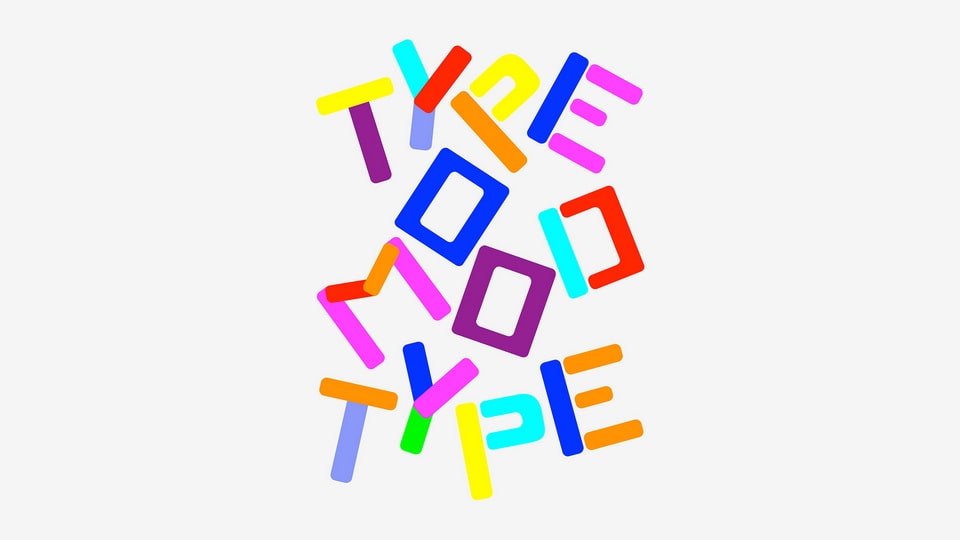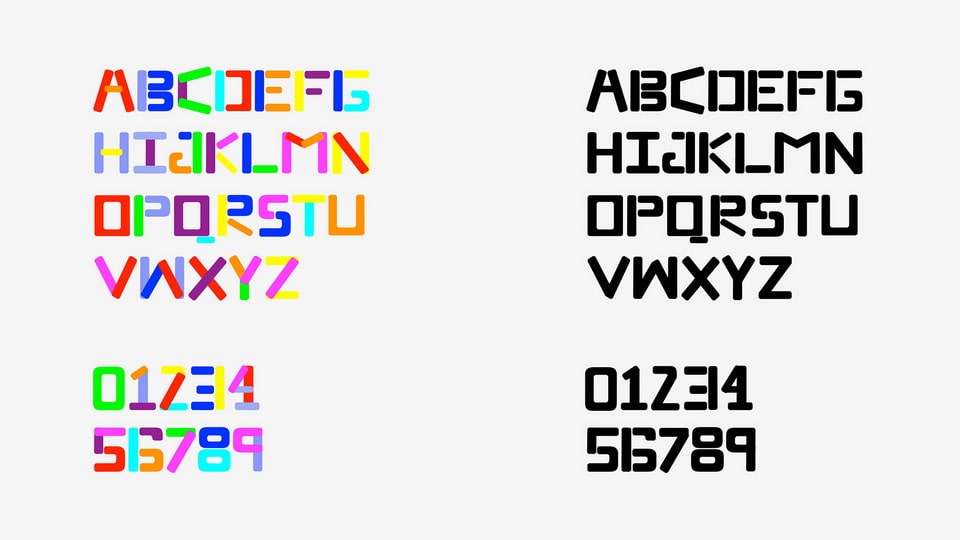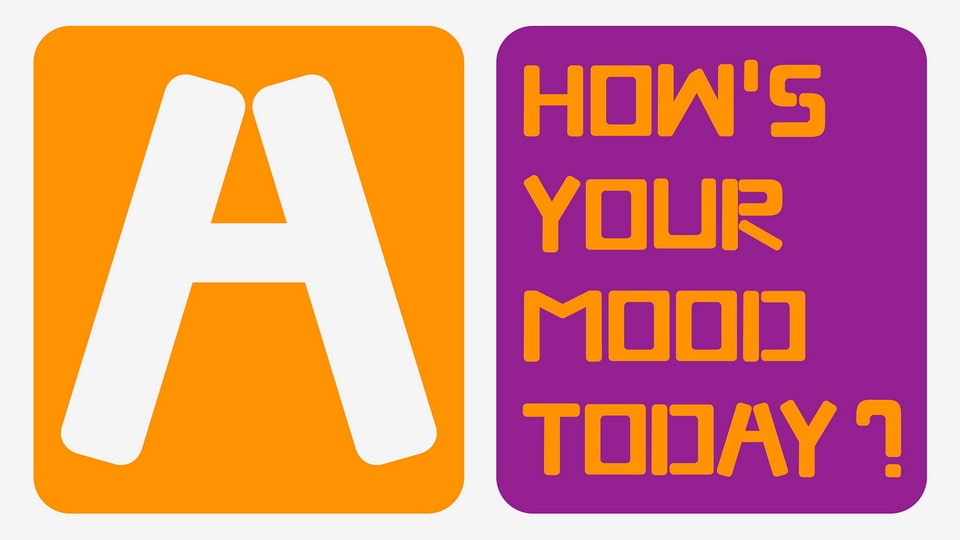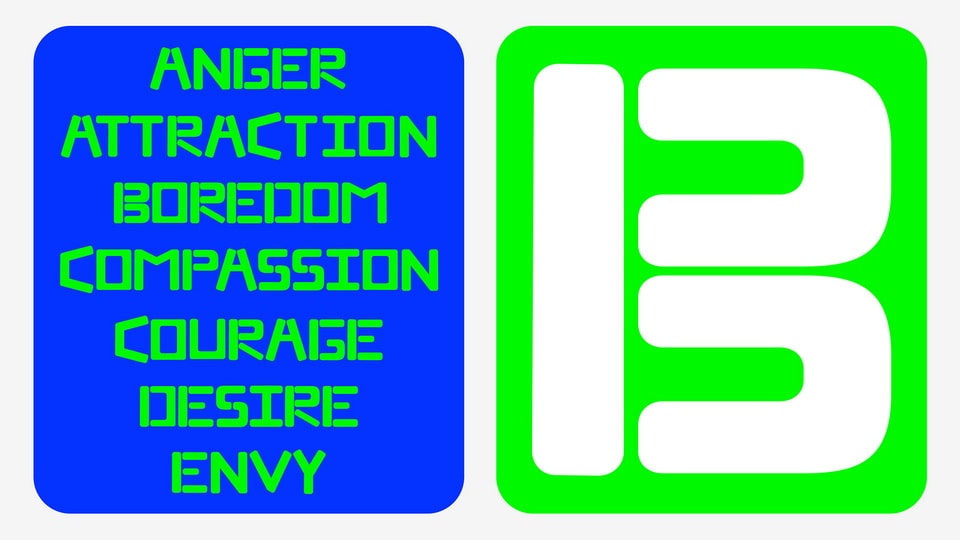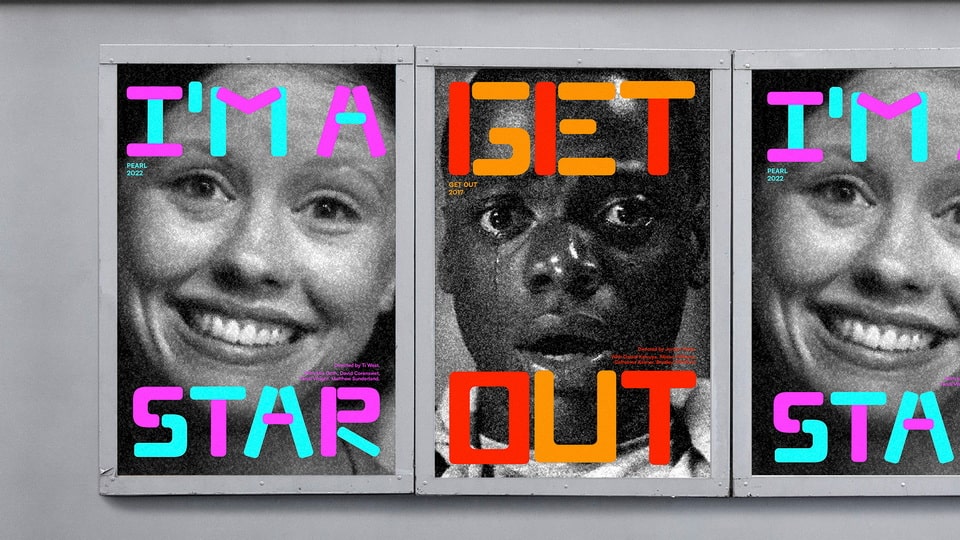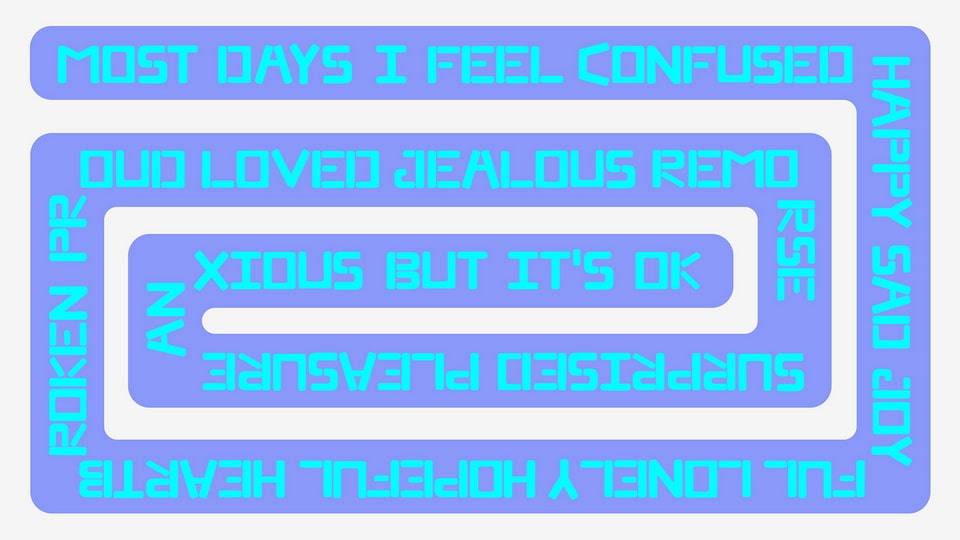
Moodtype is a sans-serif display font designed for the 36 Days of Type project. This uppercase-only typeface features a modular design where each character is adapted to suit its purpose.
Moodtype’s concept explores the use of color combinations for each module, allowing it to evoke distinct moods.